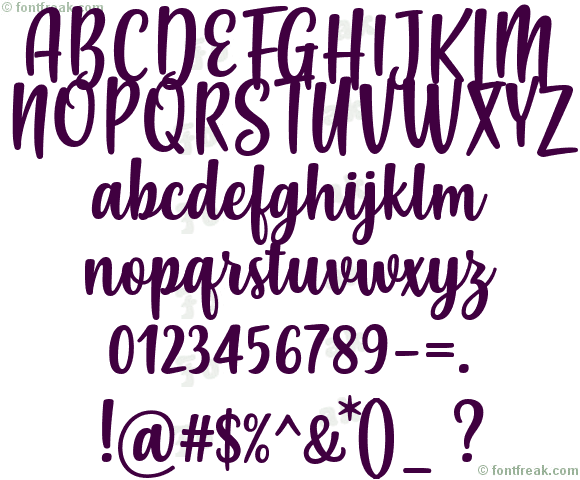
Misses
About Misses
The Misses font, designed by Situjuh Nazara, is a captivating display typeface that falls into the category of modern script fonts. With its fluid and elegant strokes, Misses showcases a distinct charm that can elevate any design project. The font features a medium stroke weight and a balanced contrast, allowing for legibility while maintaining an artistic flair. Its slightly condensed spacing enhances readability, making it suitable for both headlines and body text.
Visually, Misses is characterized by its graceful curves and unique letterforms that exude a sense of sophistication. The rounded edges and playful loops are not only inviting but also add a touch of personality to any written piece. This font is particularly well-suited for a variety of applications. It shines in wedding invitations, where its romantic aesthetic can set the perfect tone for a special day. Additionally, it can be effectively used in branding for boutique shops, capturing the essence of a chic and contemporary style. Restaurant menus can also benefit from the Misses font, offering a warm and welcoming feel that complements culinary artistry. Furthermore, it can enhance social media graphics, making content stand out in a visually crowded space.
Targeting graphic designers, small business owners, and content creators, the Misses font serves as a versatile tool in any creative arsenal. Its free download option makes it accessible for anyone looking to inject a fresh and stylish element into their projects. Ultimately, the Misses font stands out due to its harmonious blend of elegance and approachability, making it an ideal choice for those seeking to make a lasting impression with their typography. Whether for personal or professional use, this font is sure to leave a delightful mark.